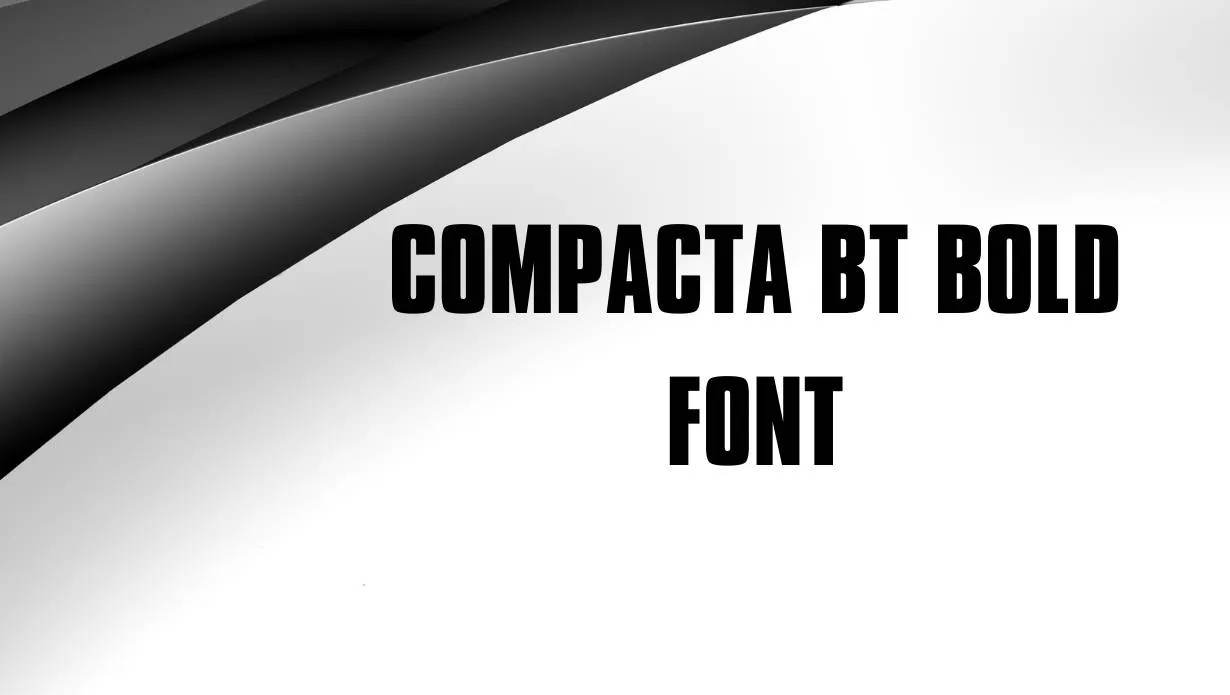
We are going to introduce an extraordinary typeface that is known as Compacta Bt Bold Font. It is belonging to the sans serif typeface family that comes in one regular weight. This font is the creation of a notable typeface foundry called Bitstream Inc. They designed this marvelous typeface between 1990 to 1993. This typeface has amazing clean, arranged, and stylish letterforms that provide amazing legibility to big headlines.
The design offers many stylistic alternates, texture ligatures, standard swashes, and glimpses, which would be a perfect font package for any design or text design but it is great for creating huge headlines for websites or titling for any products. In addition, the typeface can support otf features along with extensive language characters including all European alphabets.
Usage of Compacta Bt Bold Font
There are numerous design places where you apply this wonderful typeface. You can use this bold modern typeface for creating headlines and titles. Moreover, you can also use it for making your website headers and footers as well as quotations, book names, store or shop names, and much more.
It has various advanced features that grant the best legibility to your display projects and is good to use for printing purposes. You can use this font to create interesting designs such as:
• Logo designs
• Magazines Covers
• Social Media posts
• Advertisings
• Emblems and Labels
• Webpages
• Video games
• Greeting cards and Invitations
• Powerpoint presentations
• Editorials
• App designs
• Homeware designs
• Banners or Brochures
Compacta Bt Bold Font Family View
Compacta Bt Bold Font
What fonts are similar to Compacta Bt Bold?
Compacta bold and NHL Minnesota font are the most similar fonts to this typeface because of their same features and characters.
Where can we use Compacta Bt Bold font?
You can use it in huge designing fields such as perfect for logos, headlines, titles, quotes, advertising, social media platforms, printing projects, and web designs, etc.
What is the Compacta Bt Bold font?
This is a modern, clean, and standard sans serif typeface that comes in one regular style, created between 1990-1993 by Bitstream Incorporation.